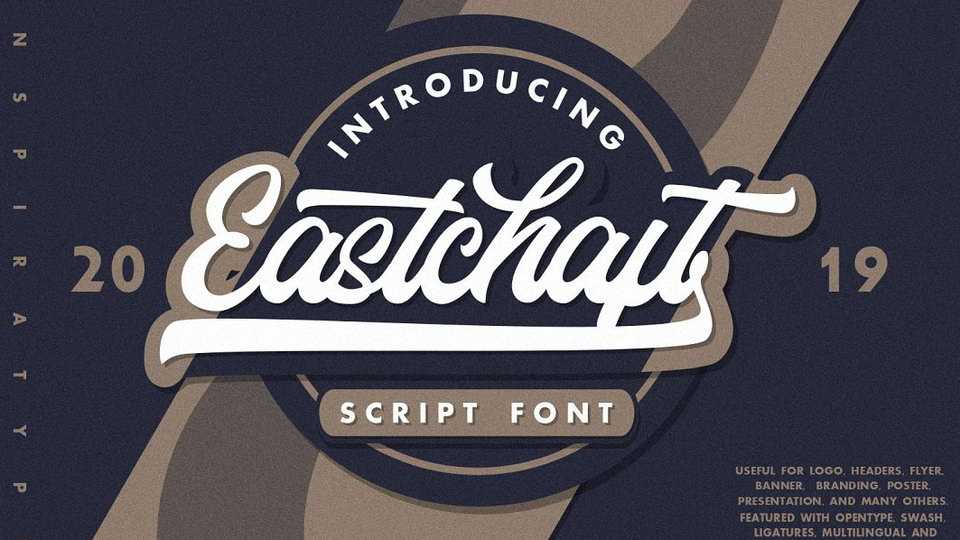
Download Eastchaft, a beautiful vintage font made by hand, inspired by classic posters. It comes with uppercase, lowercase, numerals, punctuations and so many variations on each character, common ligatures and also additional swash to let you customize your designs.